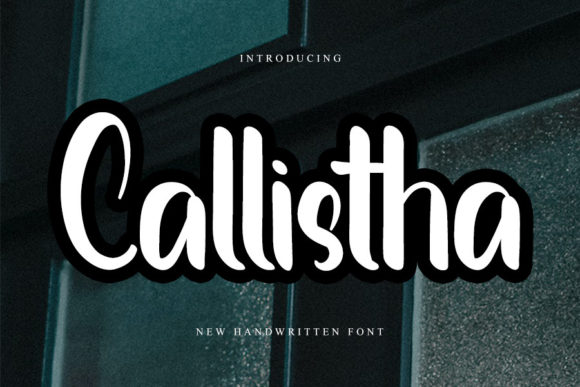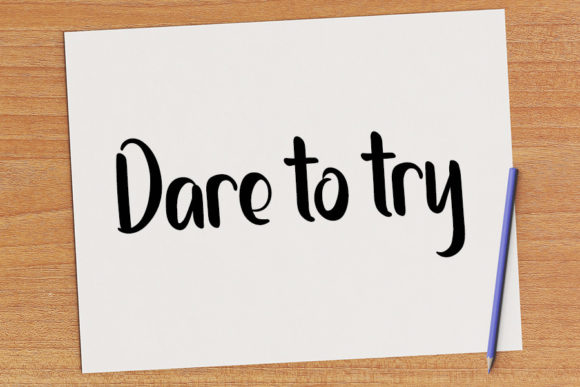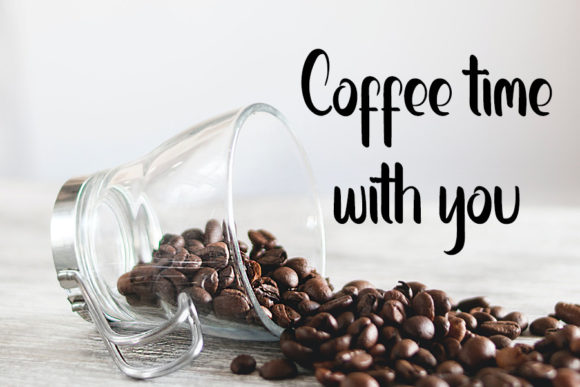
About Callistha Font
Callistha is a chic handwritten font with an impeccable form, inspired by a timeless calligraphy. Balanced and varied, this font was designed to enhance the beauty of your projects.